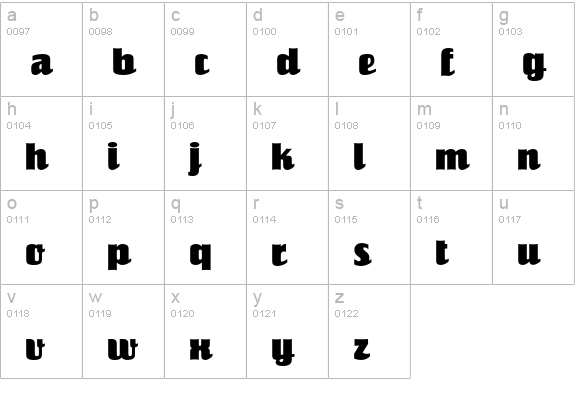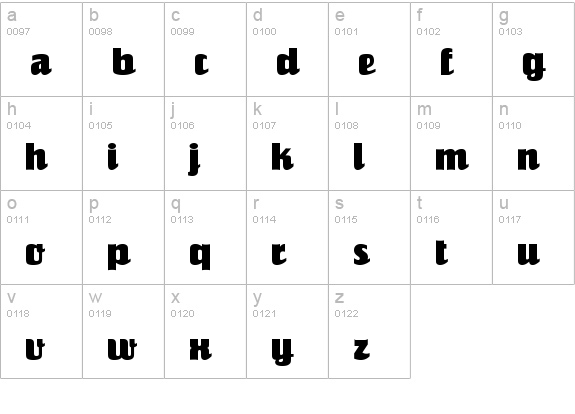
EinhornEF Font Details
EinhornEF is a stunning and elegant font that exudes sophistication and style. With its unique curves and sharp edges, this font is perfect for adding a touch of class to any design project. Whether you're working on a wedding invitation, a logo, or a branding project, EinhornEF will surely make your text stand out. The best part? EinhornEF is completely free to download at FontsMarket.com. This means you can elevate your designs without breaking the bank. Don't miss out on this opportunity to enhance your creativity with this beautiful and versatile font. Download EinhornEF today and take your designs to the next level!